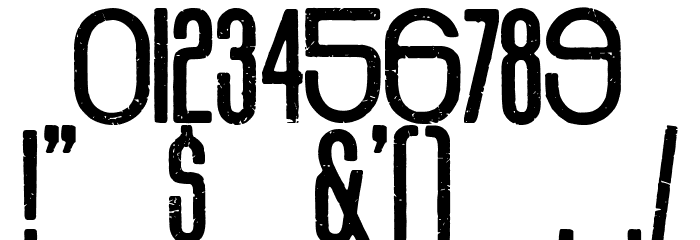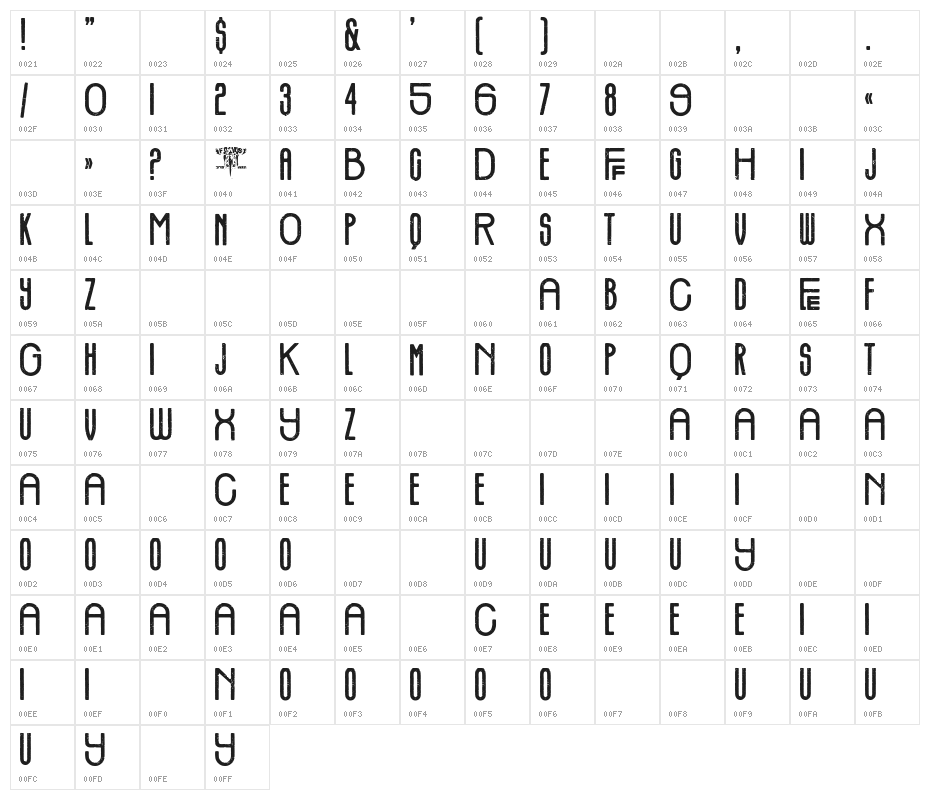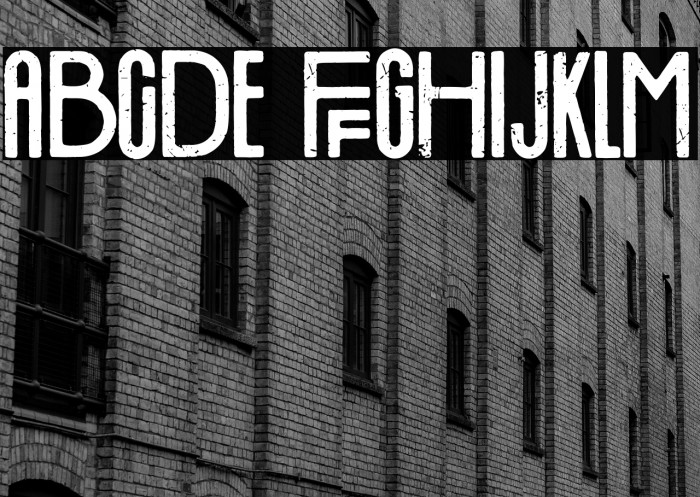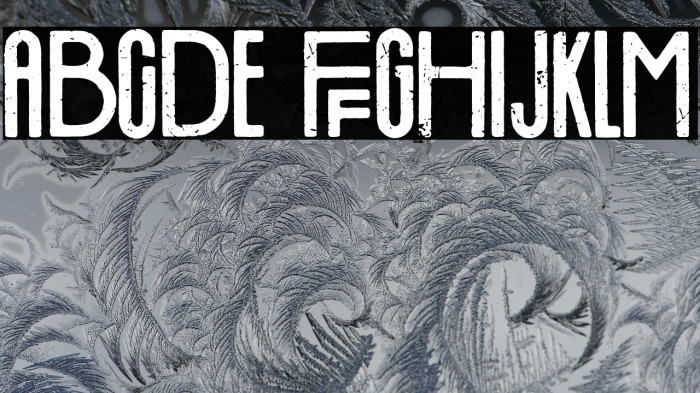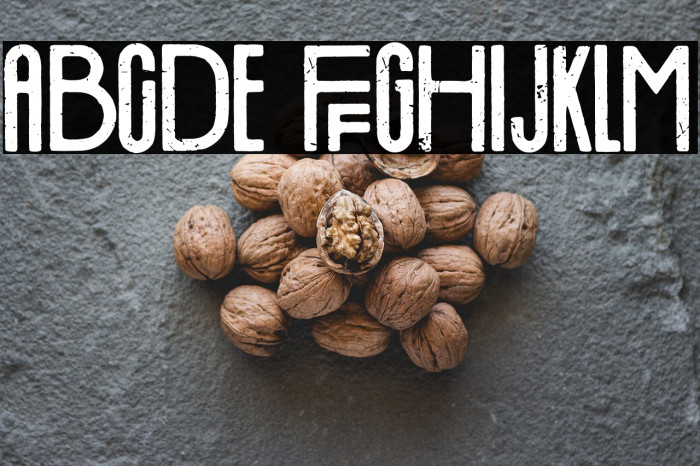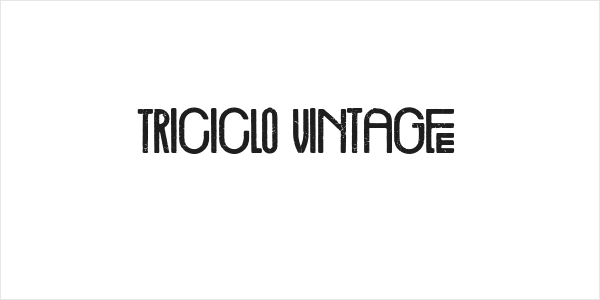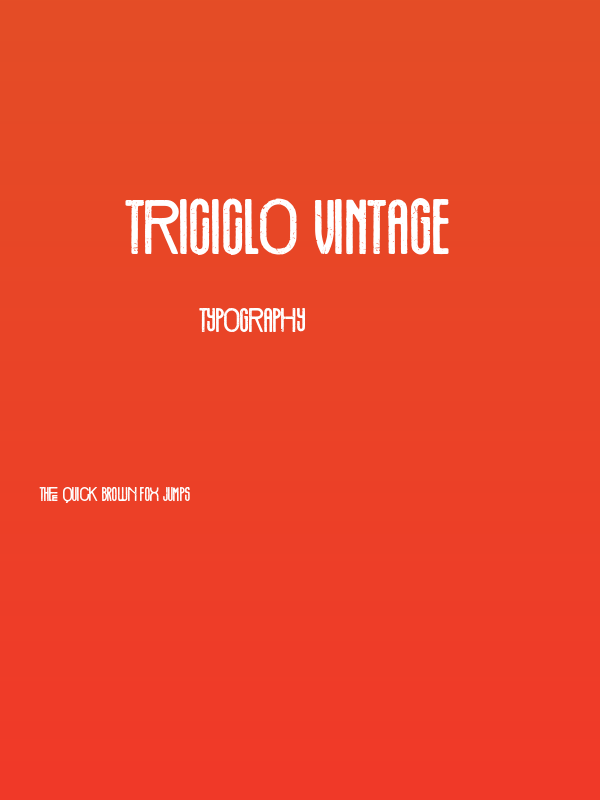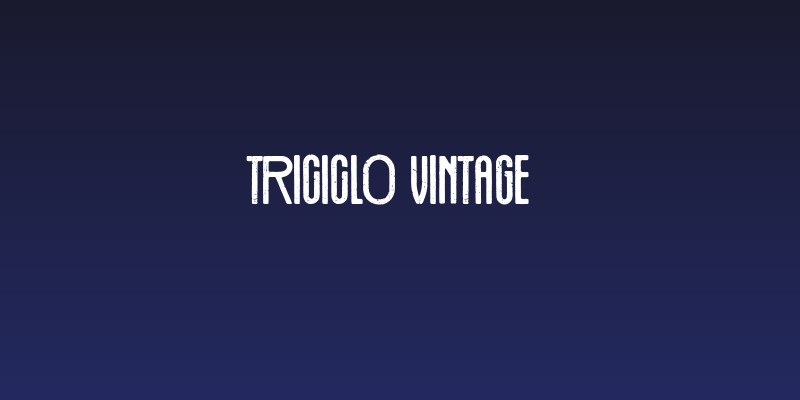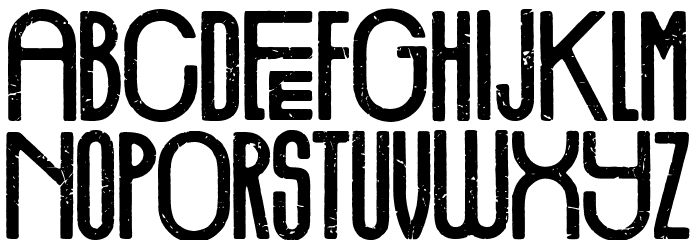
Triciclo Vintage Font
Triciclo Vintage Description
This font exudes a vintage charm with its distressed, textured appearance, reminiscent of old signage or typewriter prints. The characters are bold and slightly condensed, with a uniform stroke width that gives it a sturdy and robust feel. The uppercase letters are tall and commanding, while the lowercase letters maintain a consistent height, ensuring readability. The numbers and special characters follow the same design ethos, making them blend seamlessly with the alphabet. Its unique style is perfect for projects that require a touch of nostalgia or a retro aesthetic.
| Proposed Projects | Ideal for vintage-themed posters, retro branding, signage, and packaging design. |